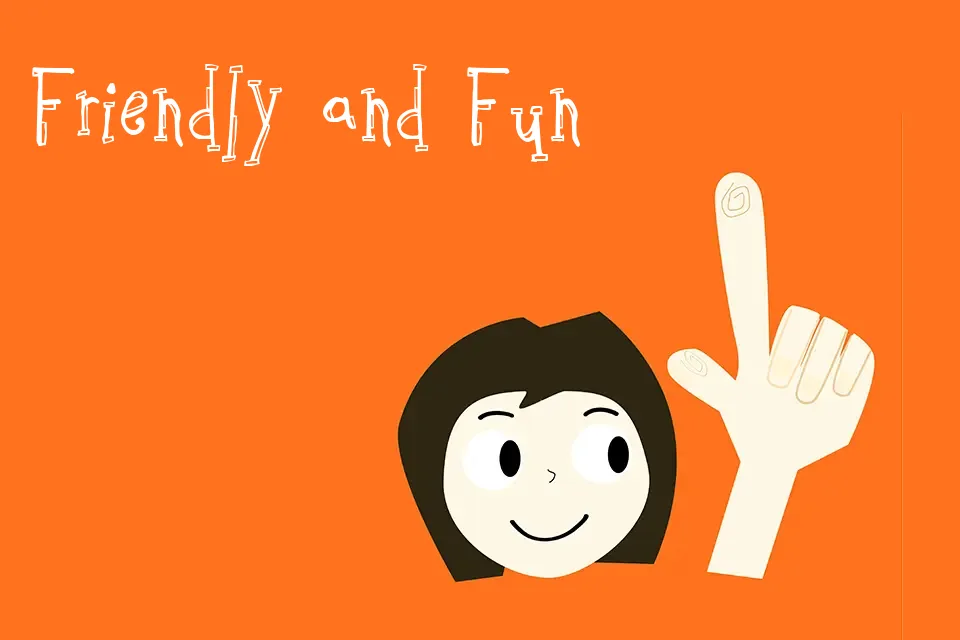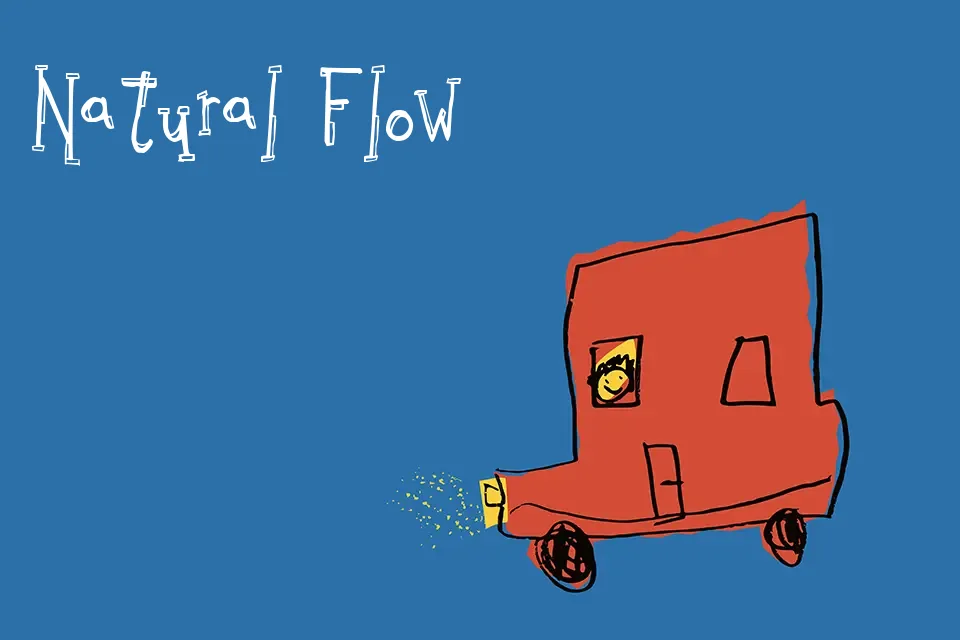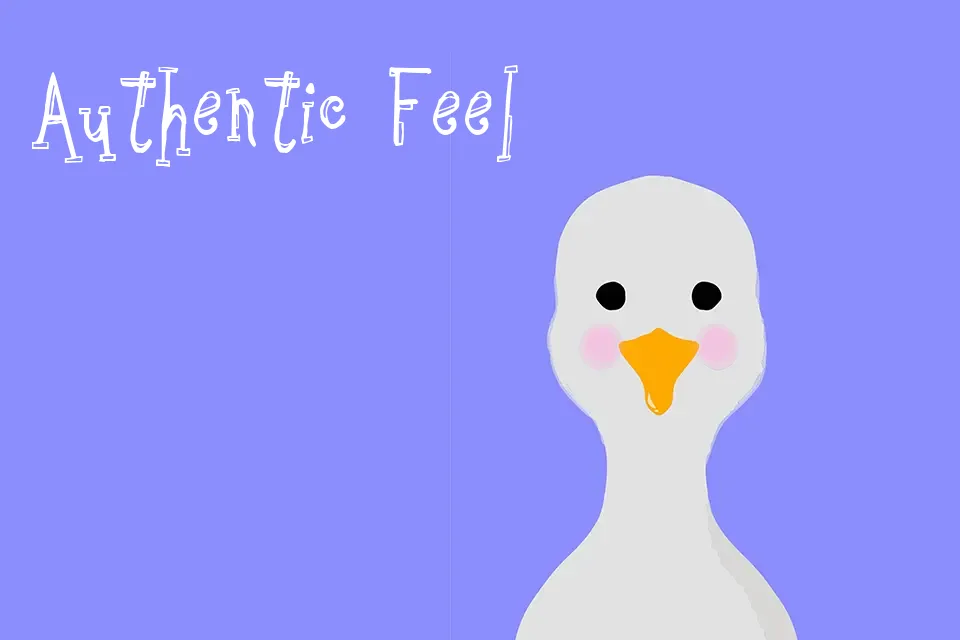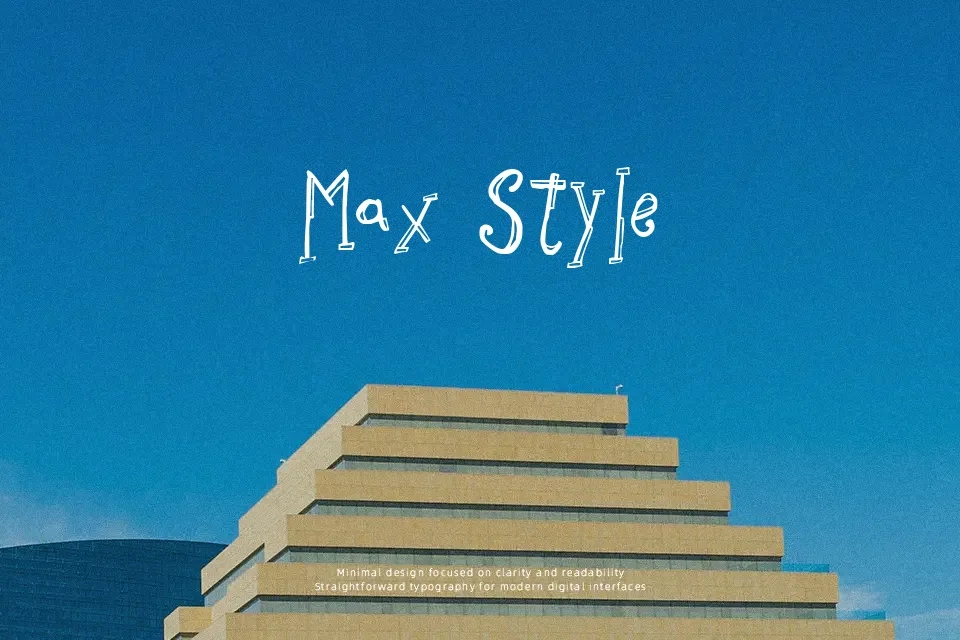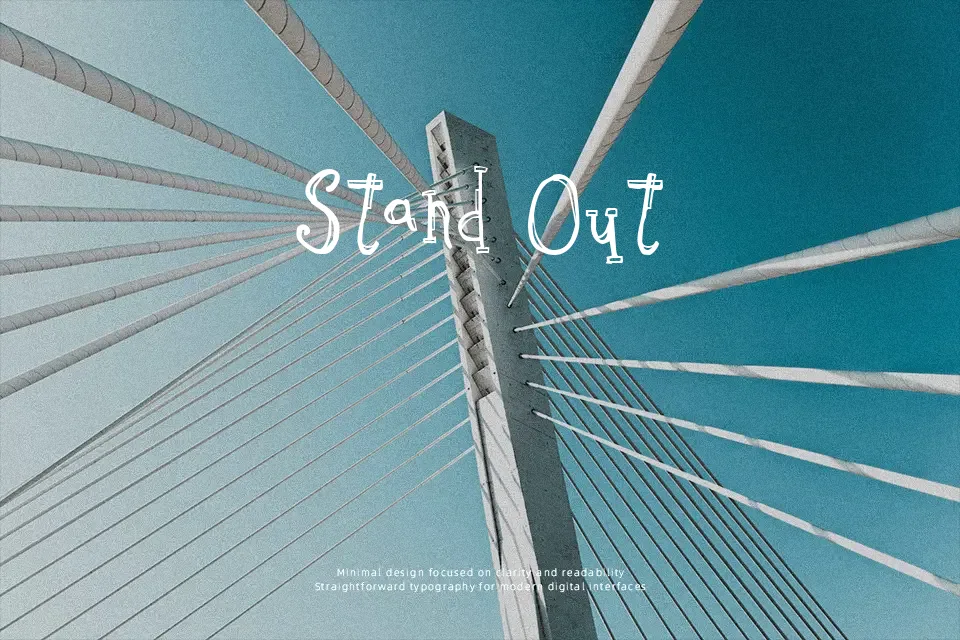
Sketchbook Font
Characterized by spontaneous, hand-rendered lines, Sketchbook Font presents an energetic display aesthetic marked by irregular letter proportions, varied stroke thickness, and comfortable character spacing. The glyphs showcase a distinctly casual appearance with organic curves and slightly staggered baselines that simulate manual drafting. In practical application, the letterforms remain easy to distinguish across medium and large headline settings, lending an engaging charm to youth-oriented branding, event flyers, and creative social graphics. However, the inconsistent stroke dynamics and informal rhythm make the typeface less suitable for small interface labels or dense editorial paragraphs where structured uniformity is required for reading comfort.
Best For: children’s book covers, cartoon title sequences, casual event posters, craft packaging labels
Not Ideal For: continuous editorial reading, technical documentation, corporate financial reports, mobile ui captions
Perfect for headline, kids, and packaging, with a artistic and cartoon style.